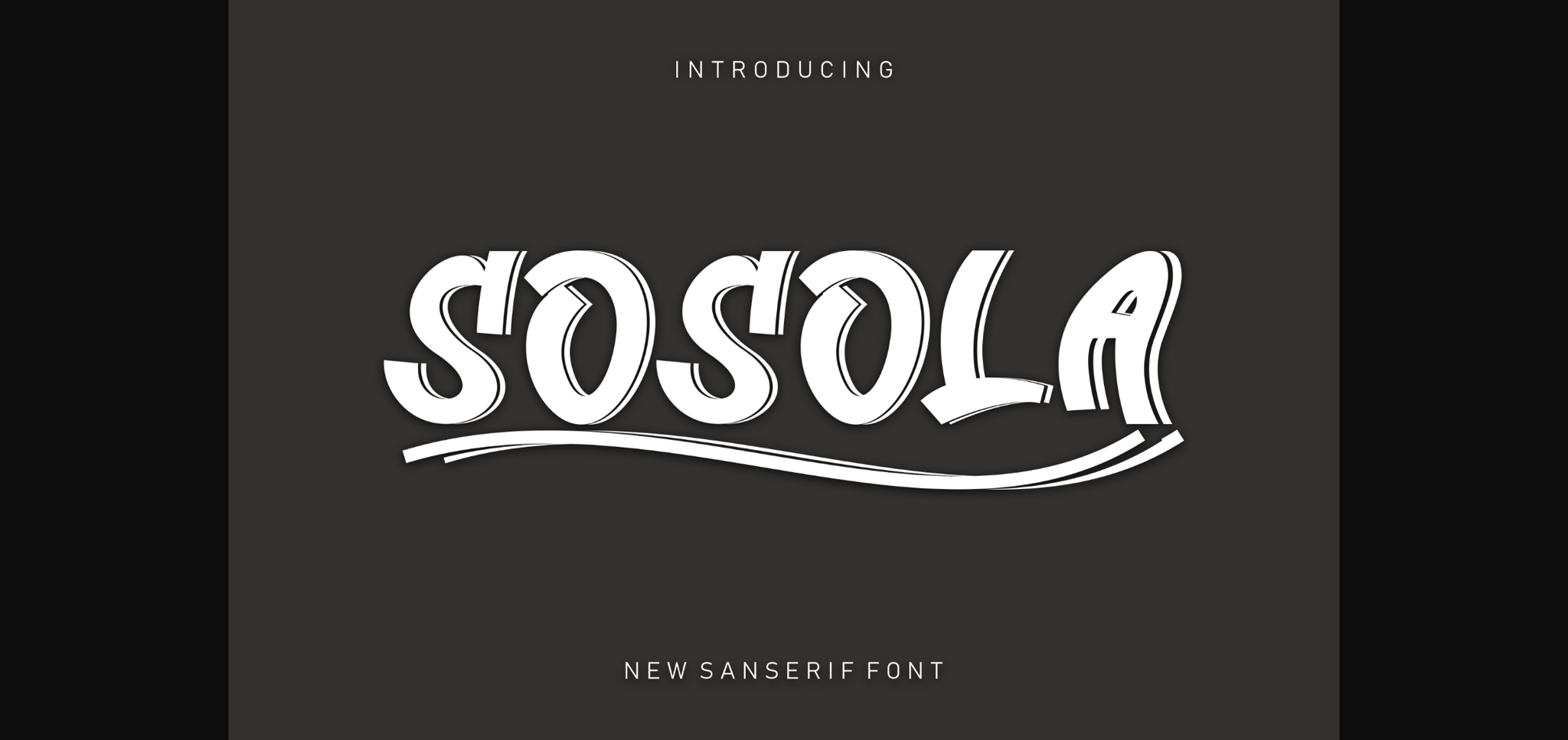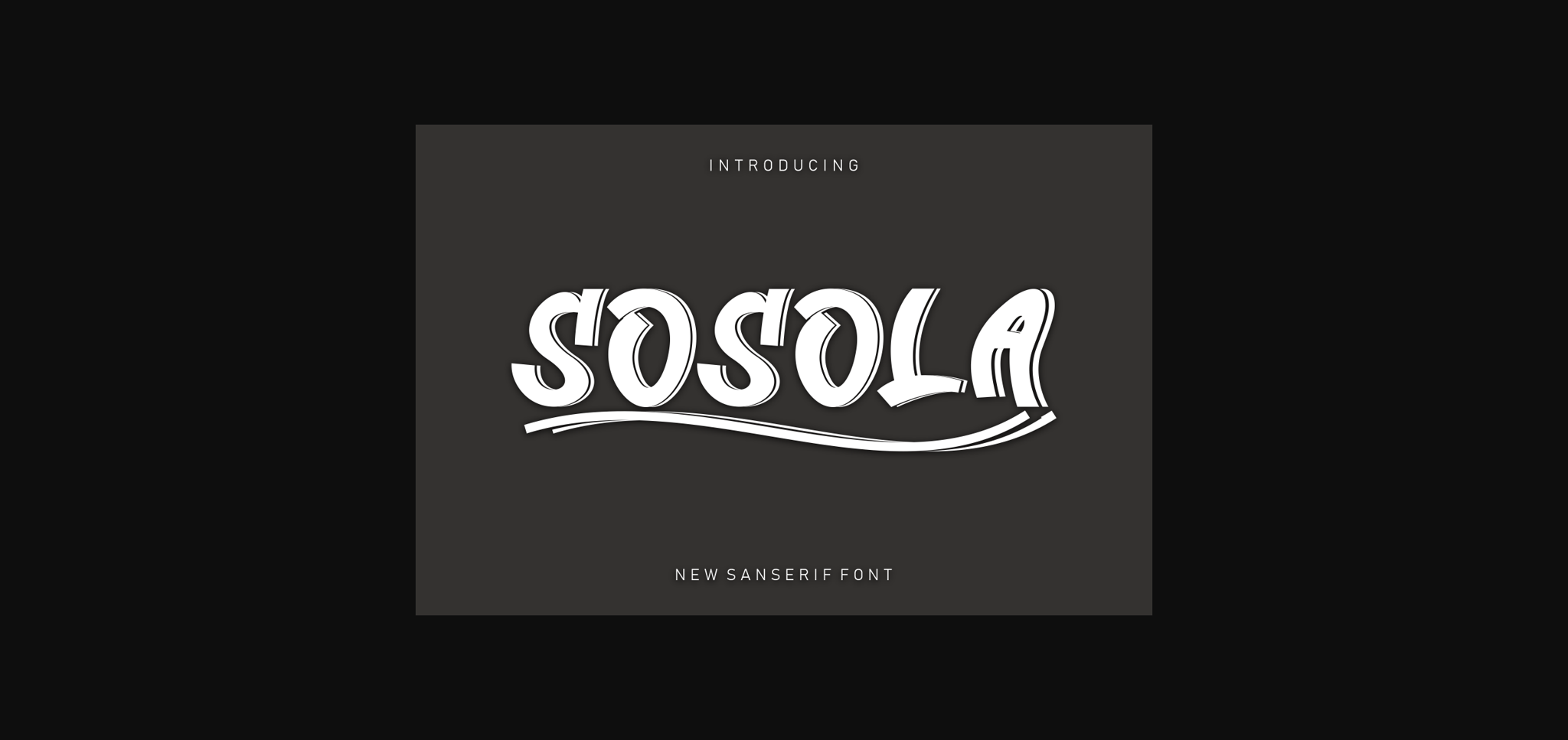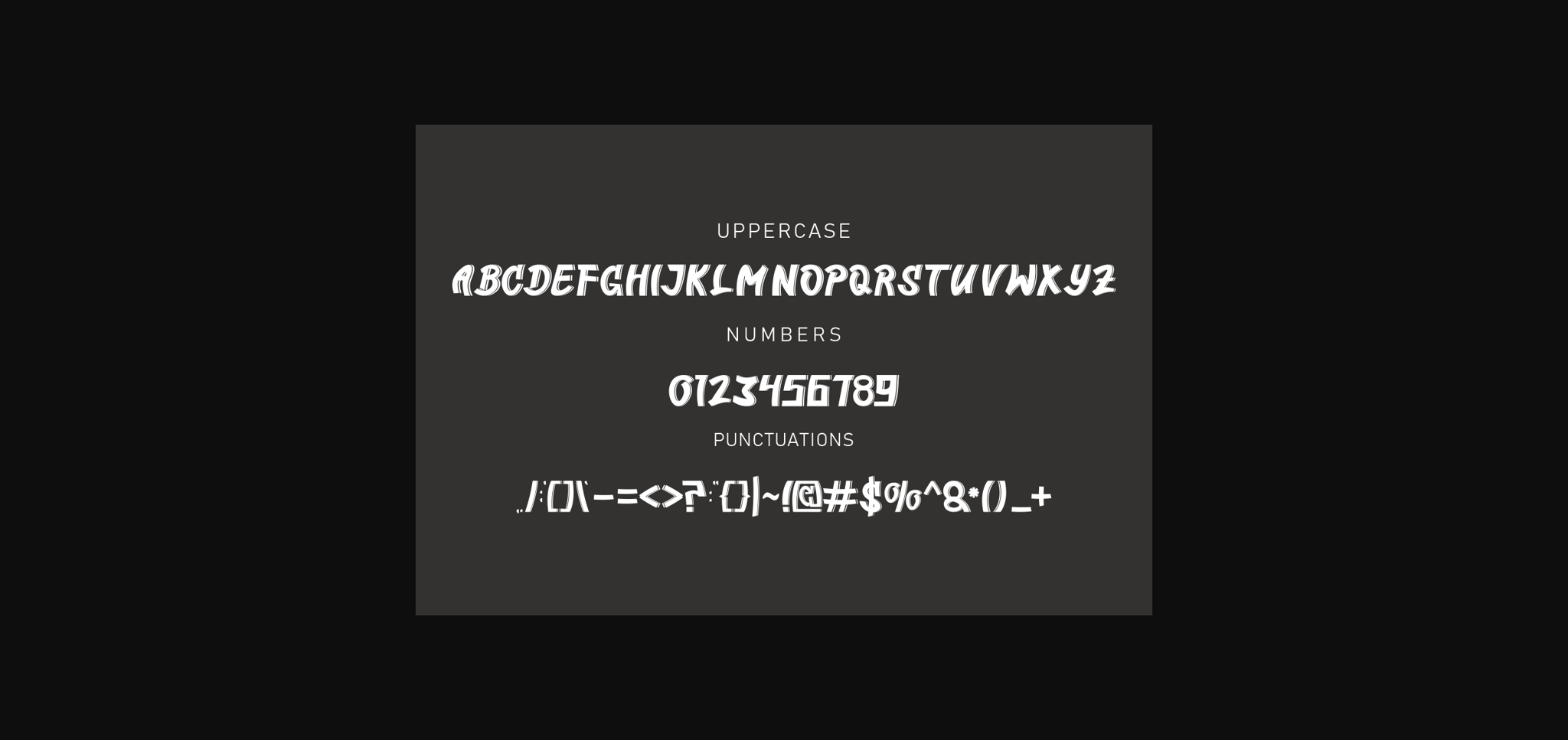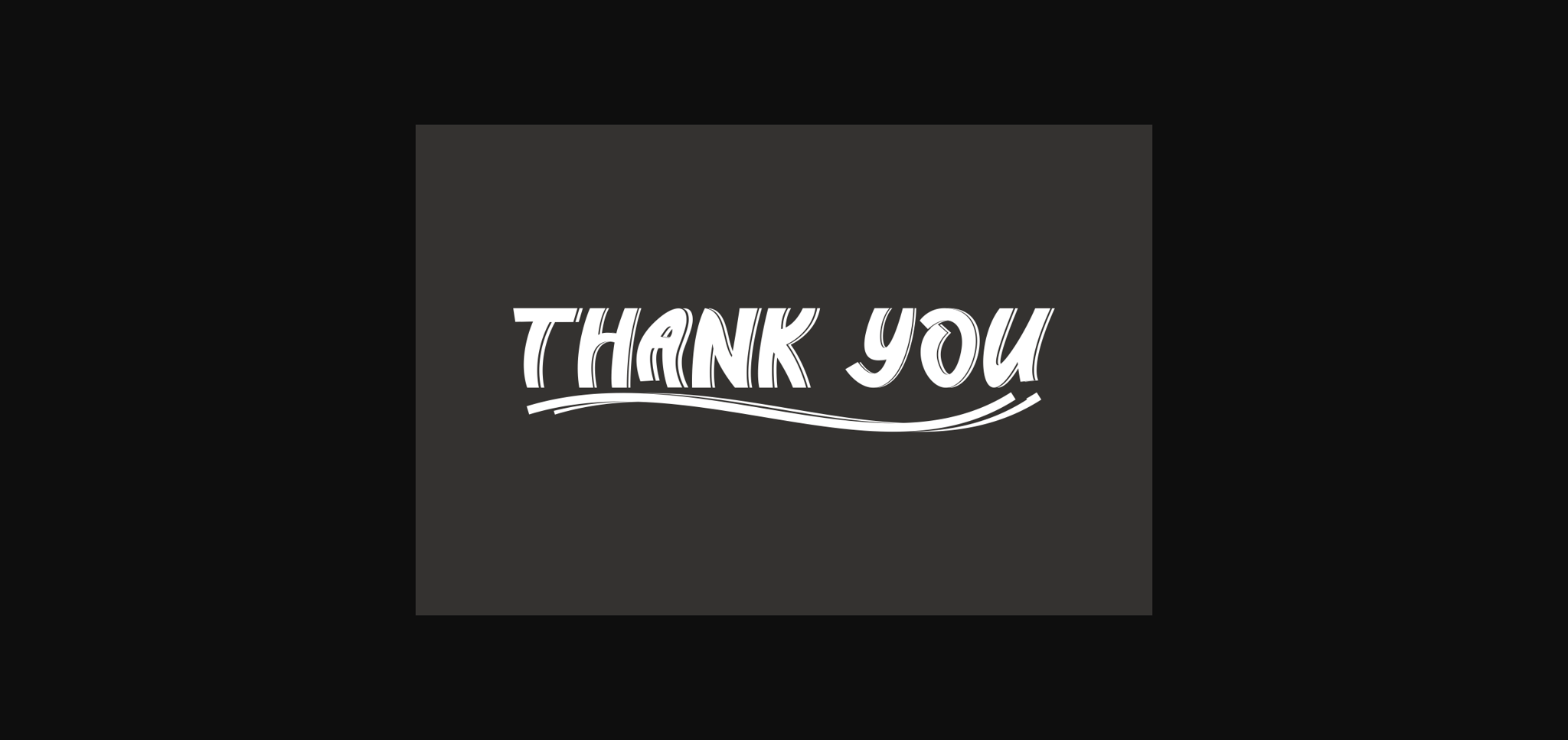
HomeSans Serif FontsSosola Font Sans Serif Fonts Sosola Font FacebookXPinterestWhatsApp 1 of 6 ... Sosola Font Poster 2... Sosola Font Poster 3... Sosola Font Poster 4... Sosola Font Poster 5... Sosola Font Poster 6... About Sosola Font Sosola is a cool and modern sans serif font. Add it confidently to your projects and you will love the results! DOWNLOAD NOW People also explored Qandas Font Feruka Font Machia Script Font Artisan Bread Julia Vintage Font Darlia Nephan Font Aesthetic Notes Font Saturday in Love Font Soft Whisperings Font 254 0 TagsSosolaSosola Font Previous articleFregeno FontNext articleRadhegon Font LEAVE A REPLY Cancel reply Comment: Please enter your comment! Name:* Please enter your name here Email:* You have entered an incorrect email address! Please enter your email address here Website: Save my name, email, and website in this browser for the next time I comment. Personal Use Free Round Geometric Personal Use Free Read more about this font Kredit Personal Use Free Read more about this font Pumpkins Candles Personal Use Free Read more about this font Whitelight Personal Use Free Read more about this font BLOG Transform Your Website: Elevate Your Typography with 7 Best Web Font Generators Are you ready to transform your website's typography from ordinary to extraordinary? Great! Today, we're diving into the world of web font generators, which... Fonts That Capture the Spirit of New York City How to Cut Any Font on Cricut: Convert a Font to SVG (Free) Elegant Wedding Invitation Fonts – Handwritten & Script Fonts